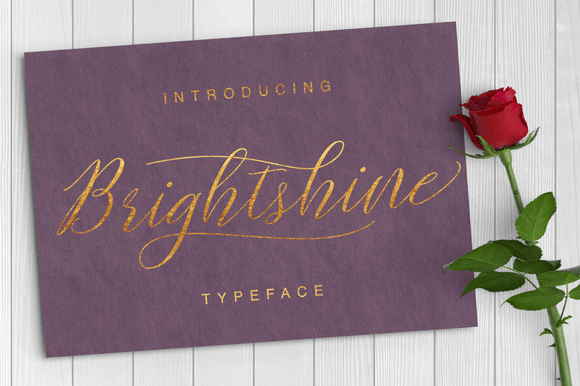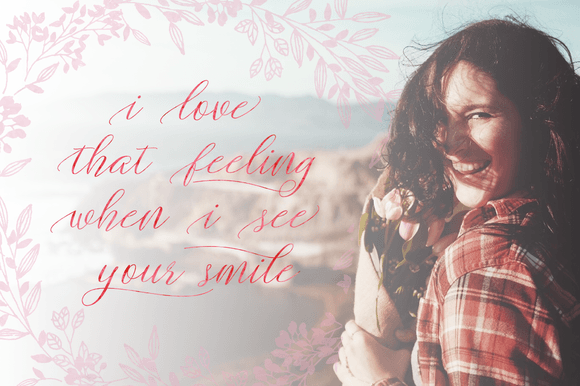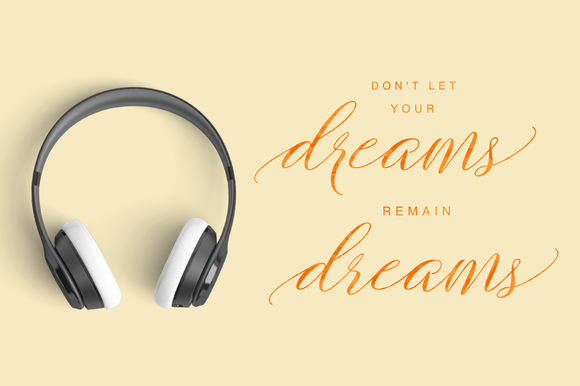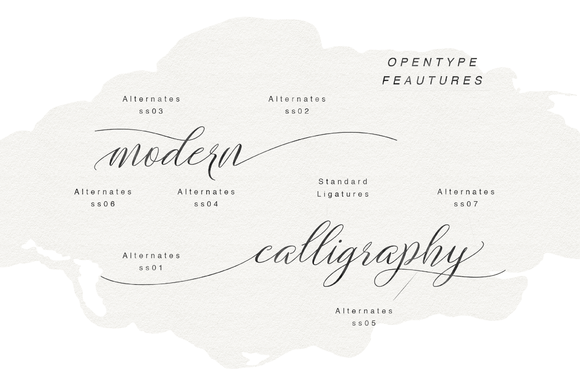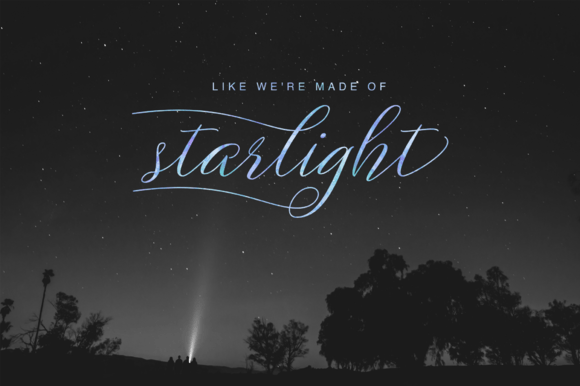
Brightshine Font
About Brightshine Font
Brightshine is a modern and beautiful script font, thin and sleek for a mature and elegant vibe.  This font is ideal for special events, romantic projects, or whenever you want to add a polished feel to your designs.